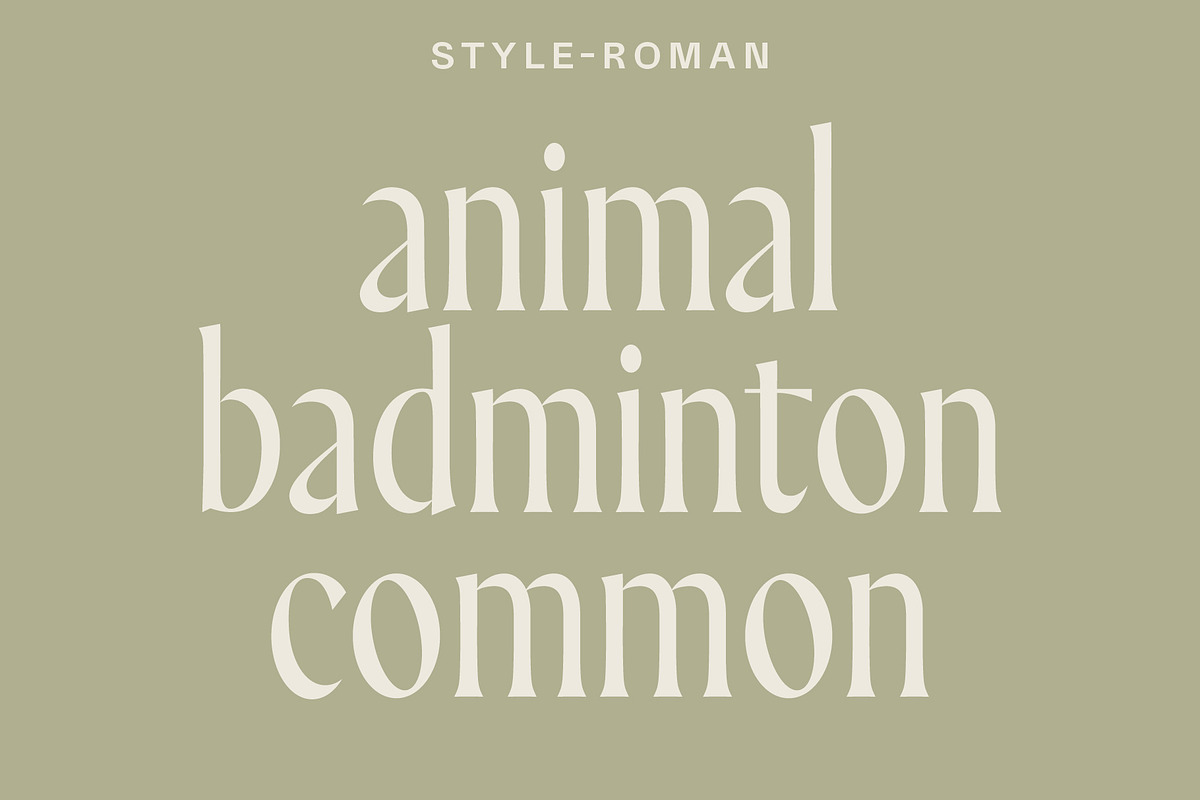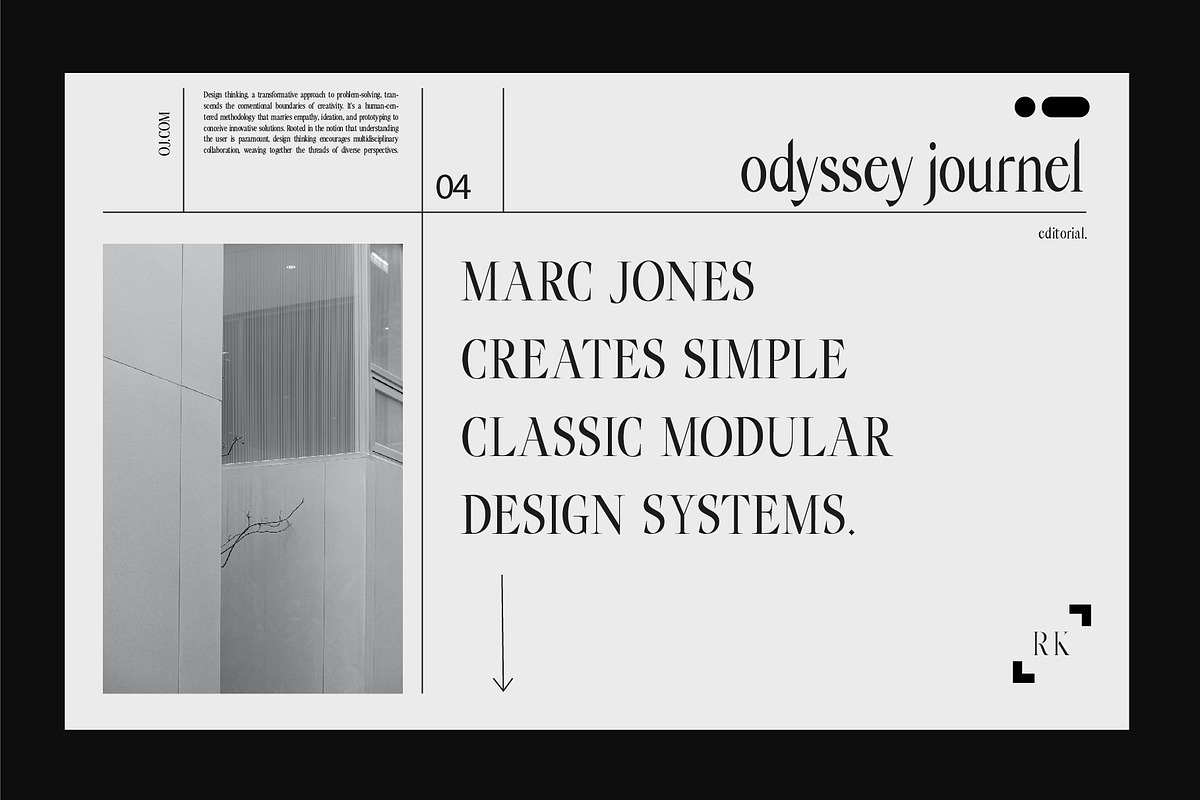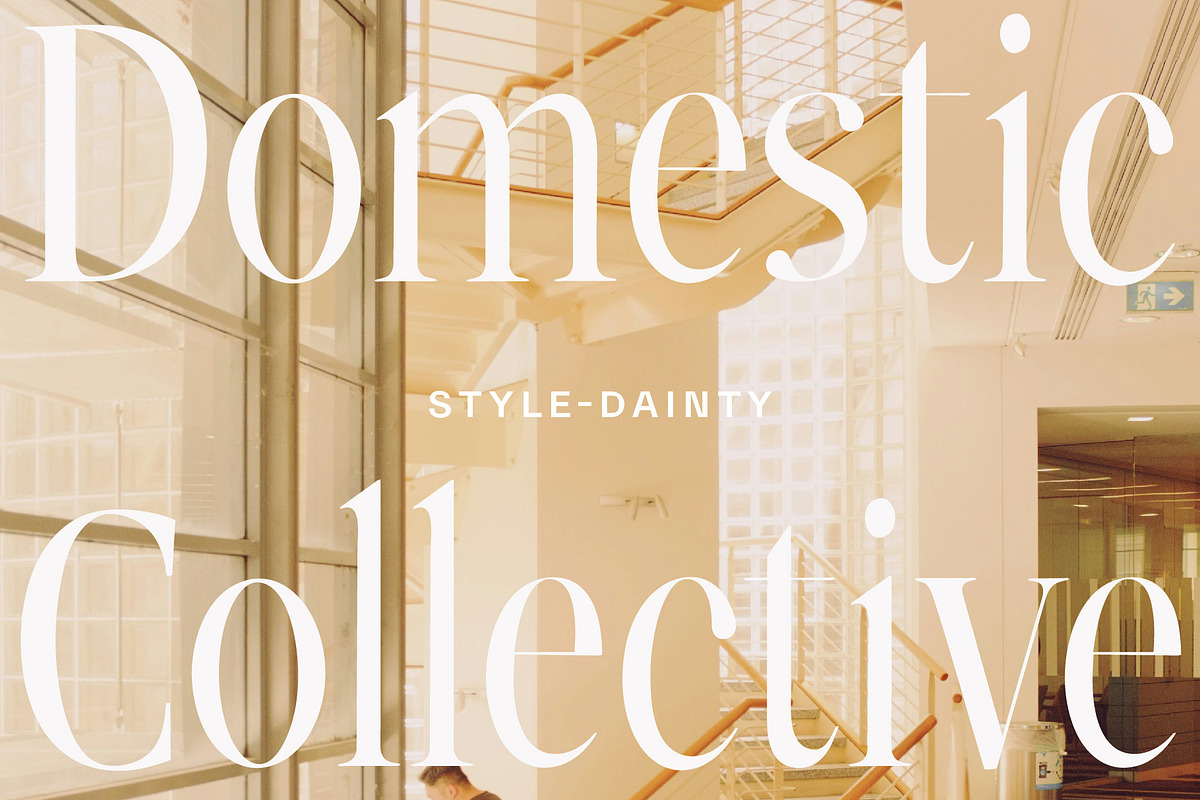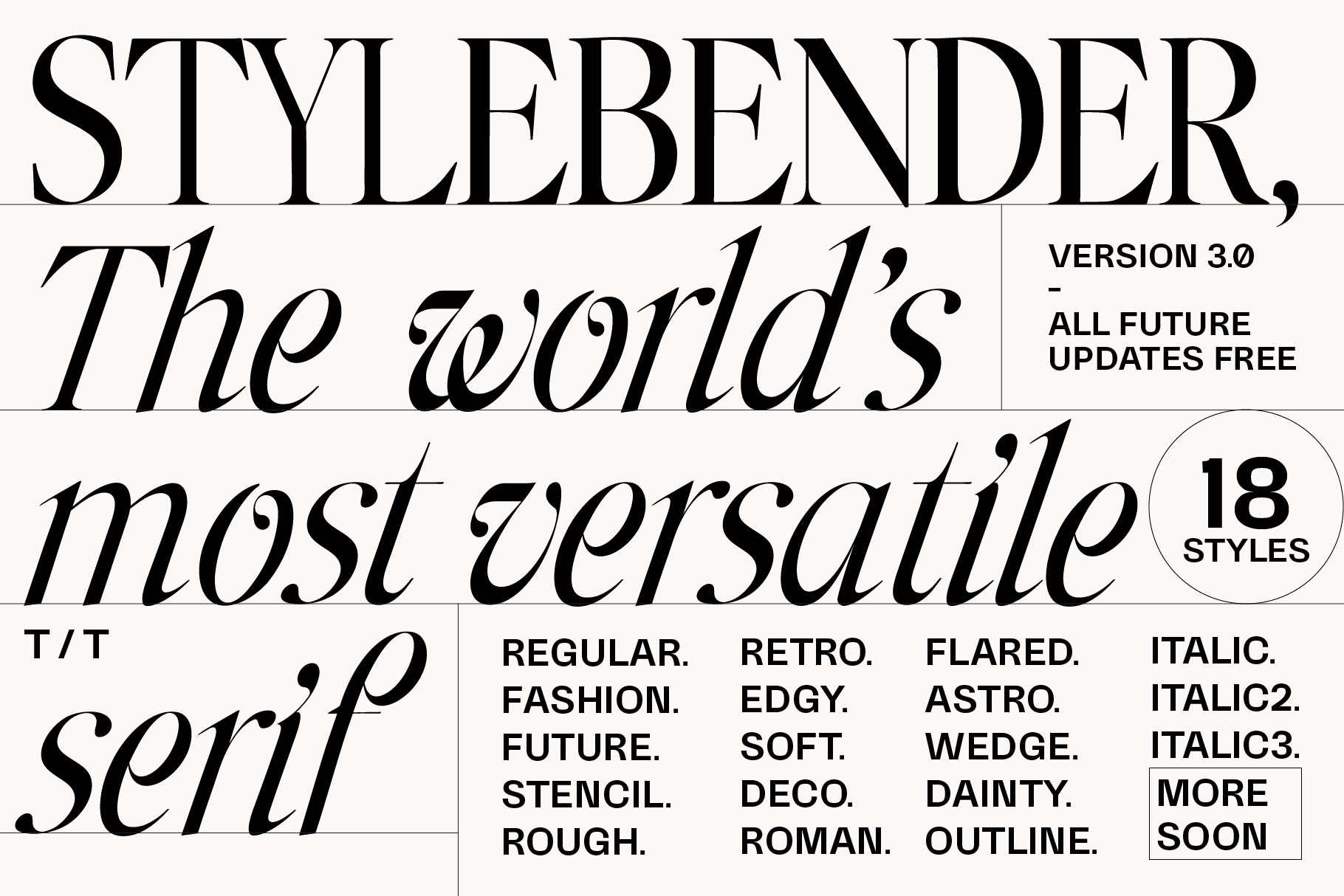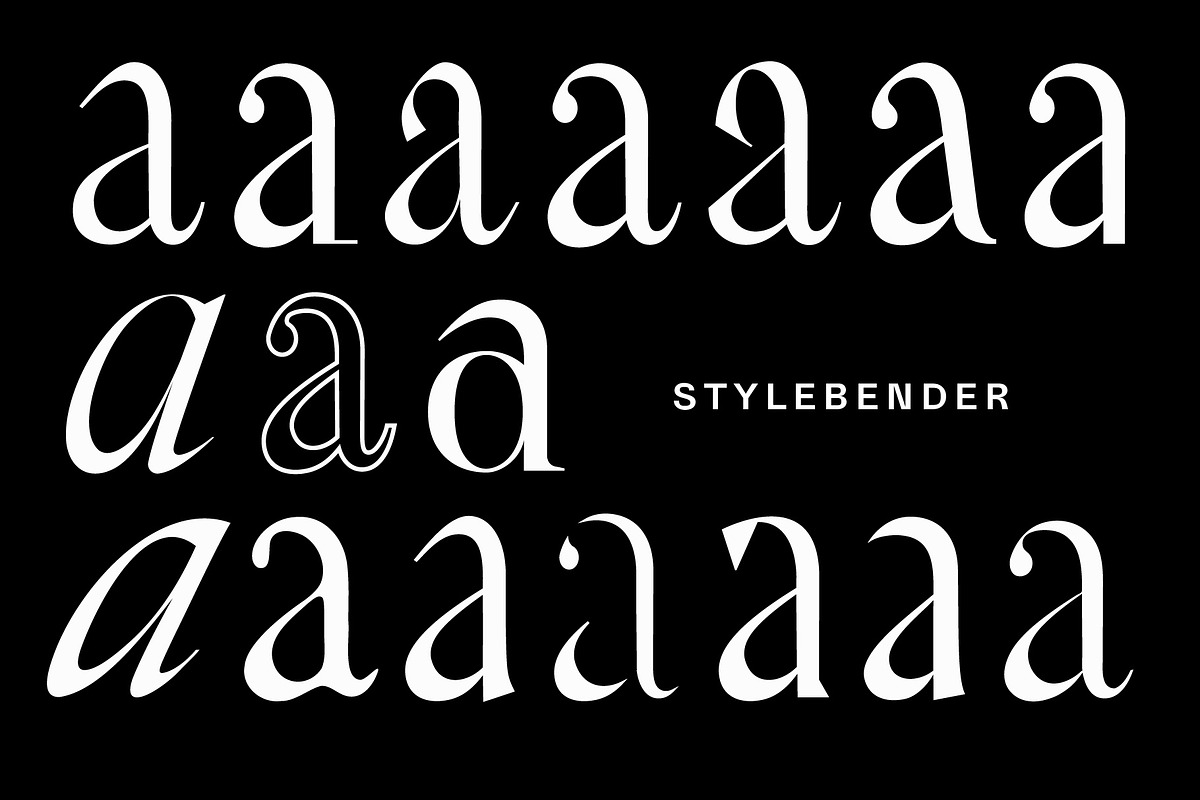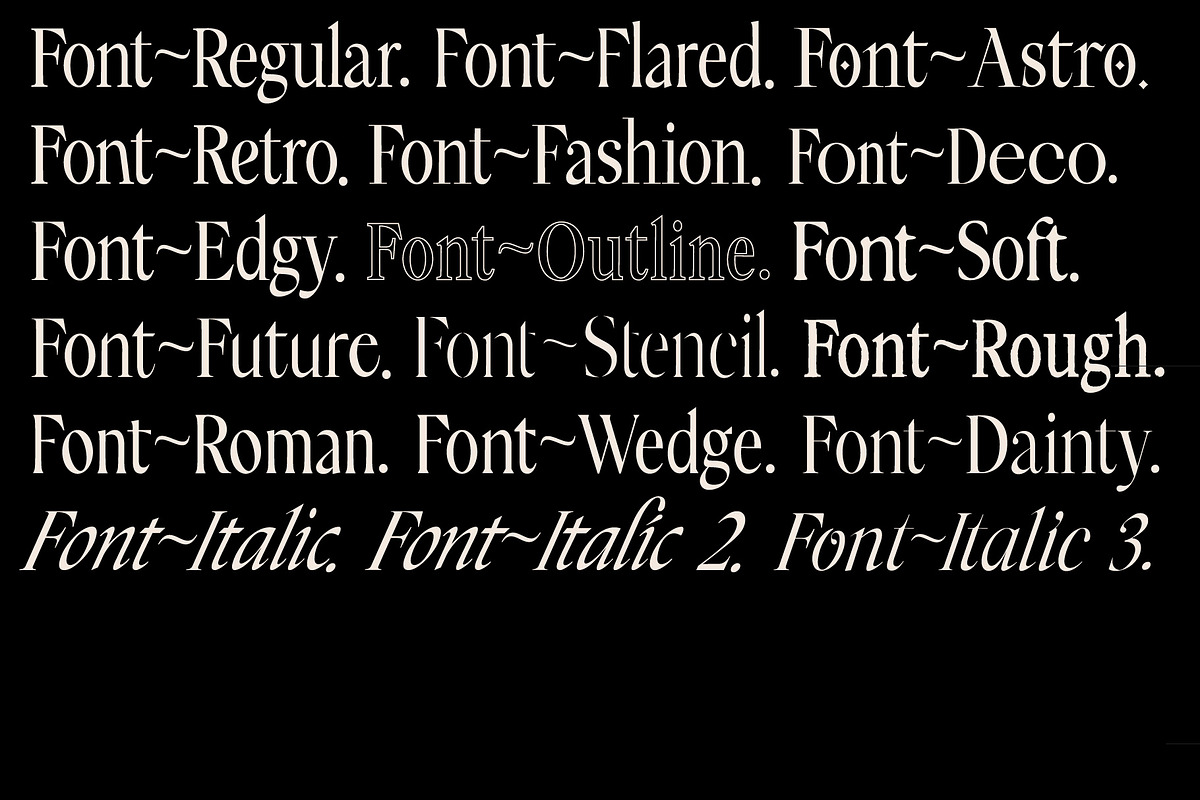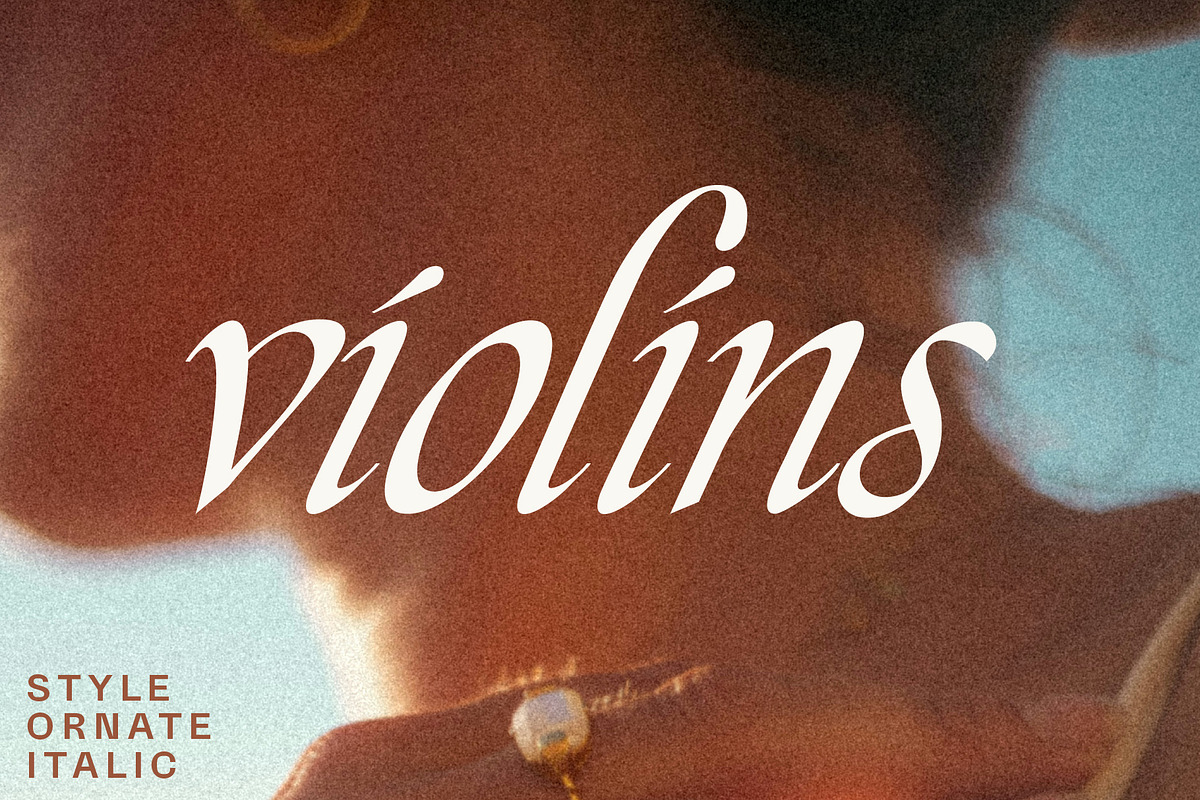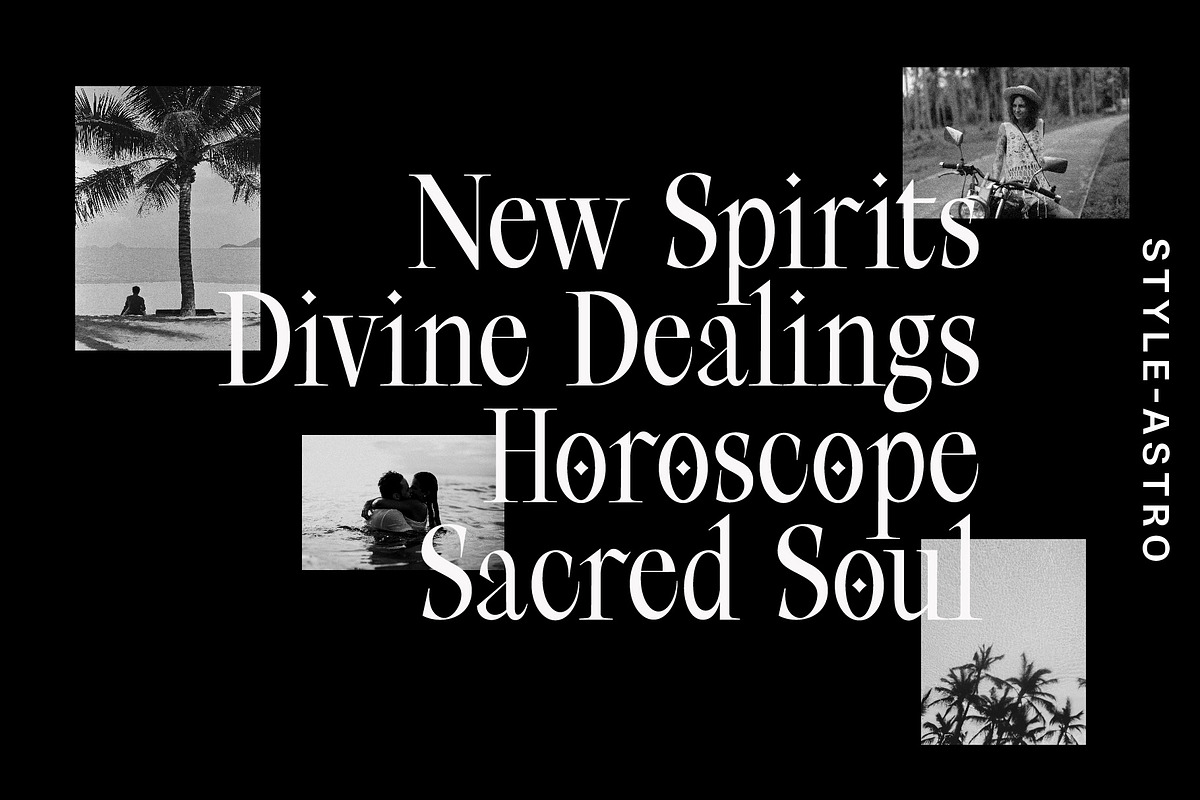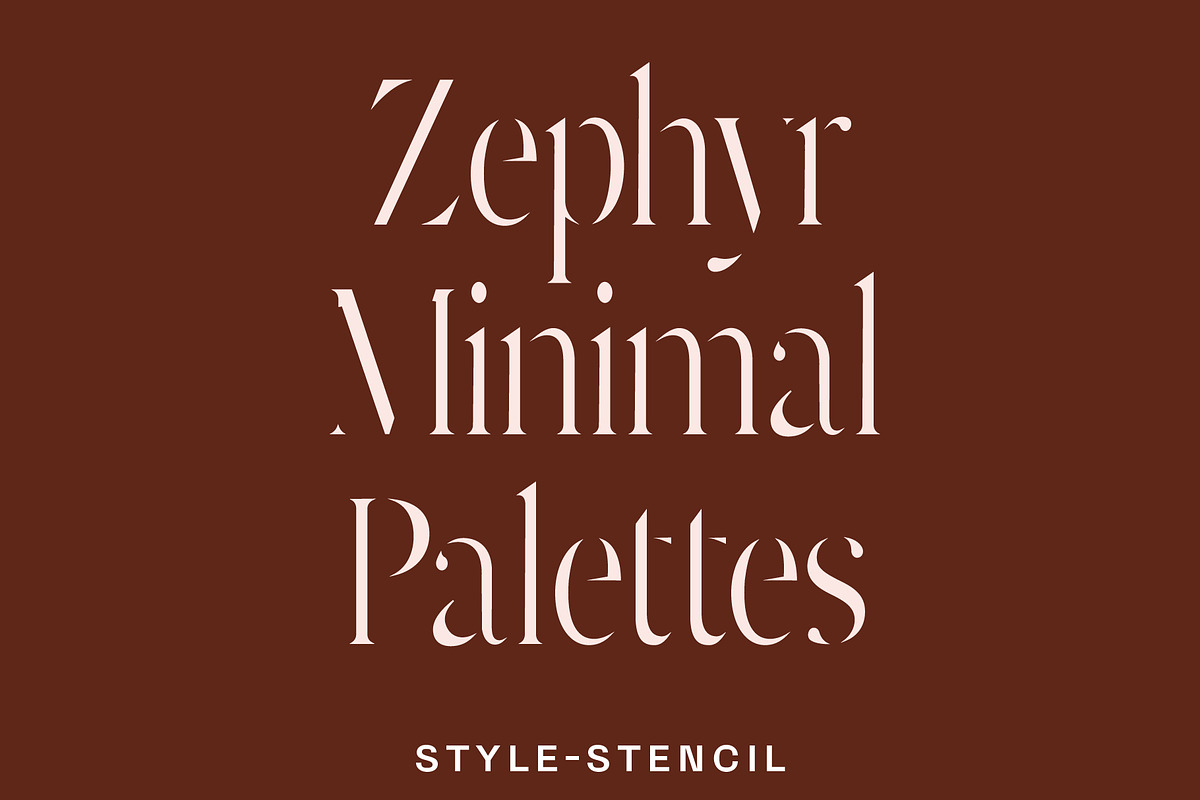
Stylebender Serif - Multi-style Font
Stylebender may the most versatile serif in type history! A theme and variation style font which works for everything from a heavy metal poster to a chic word-mark. From a Fashion magazine masthead to a farmers market tote-bag.
More styles in the works.